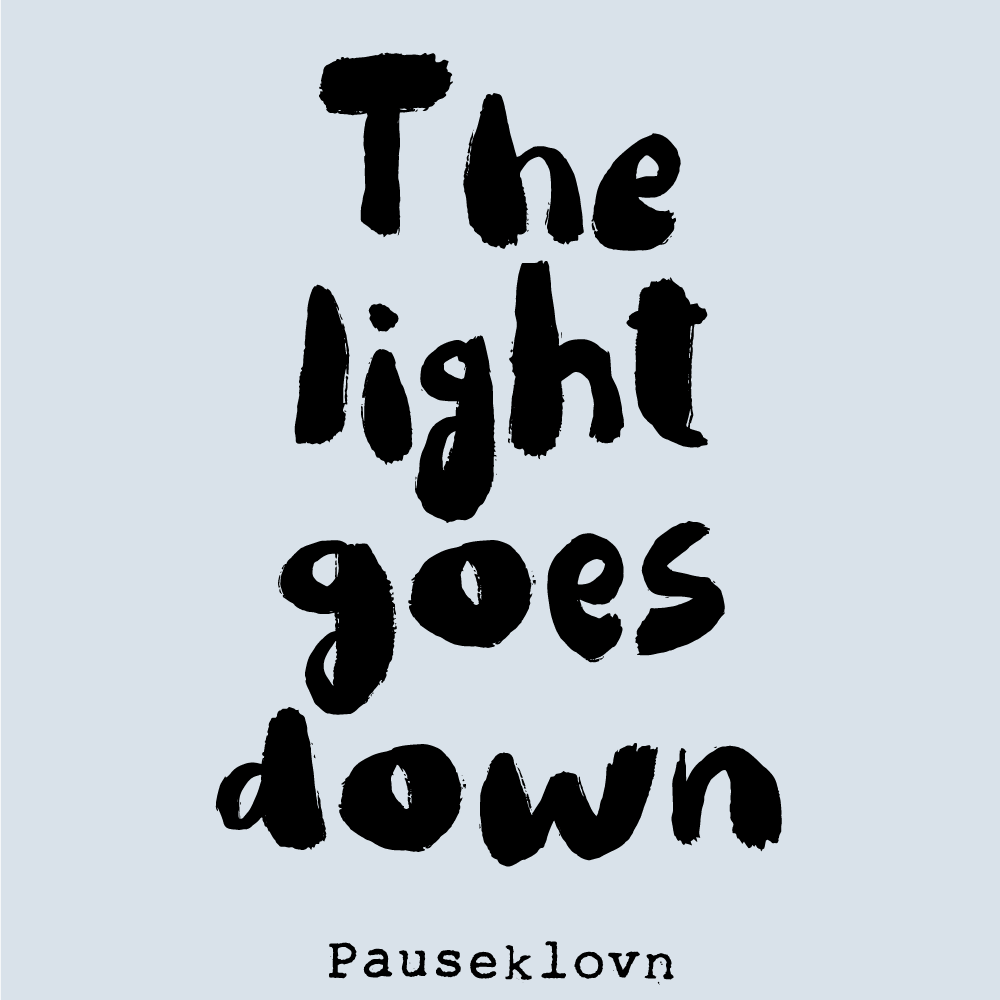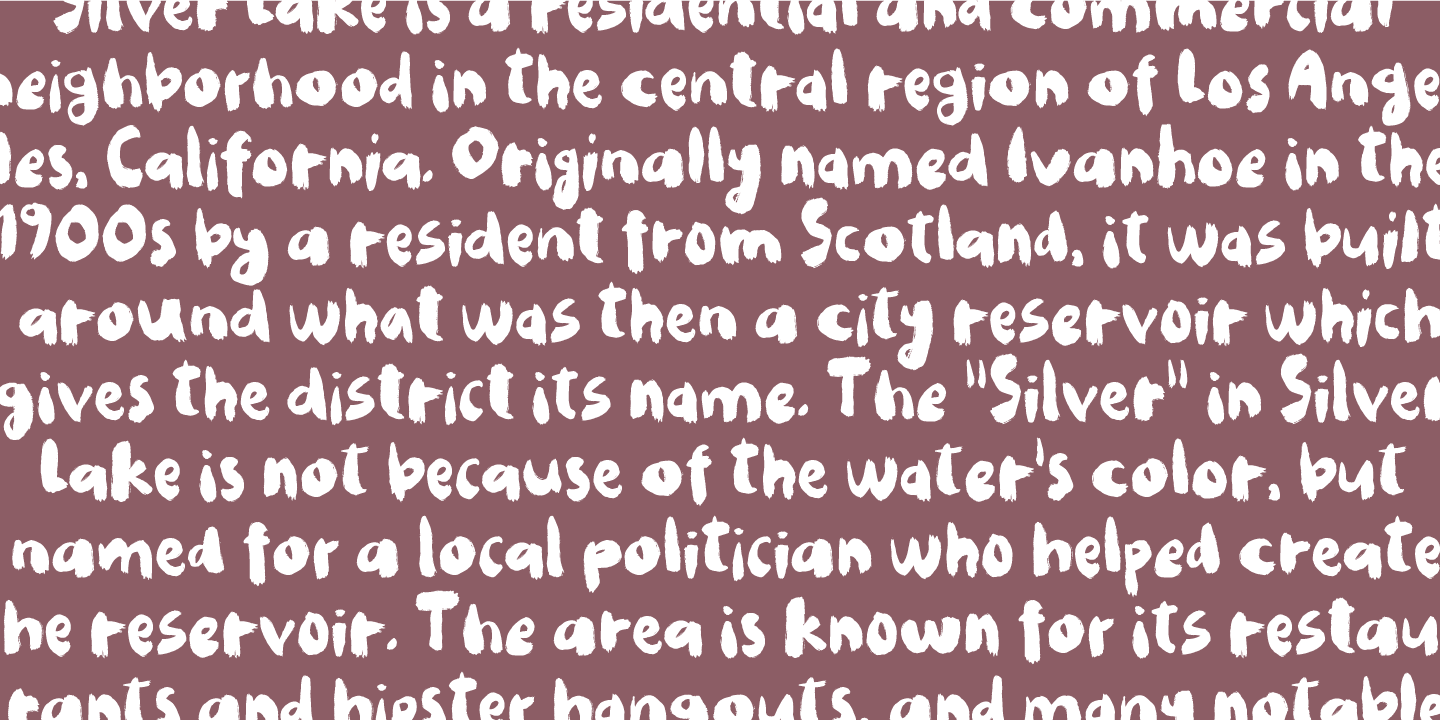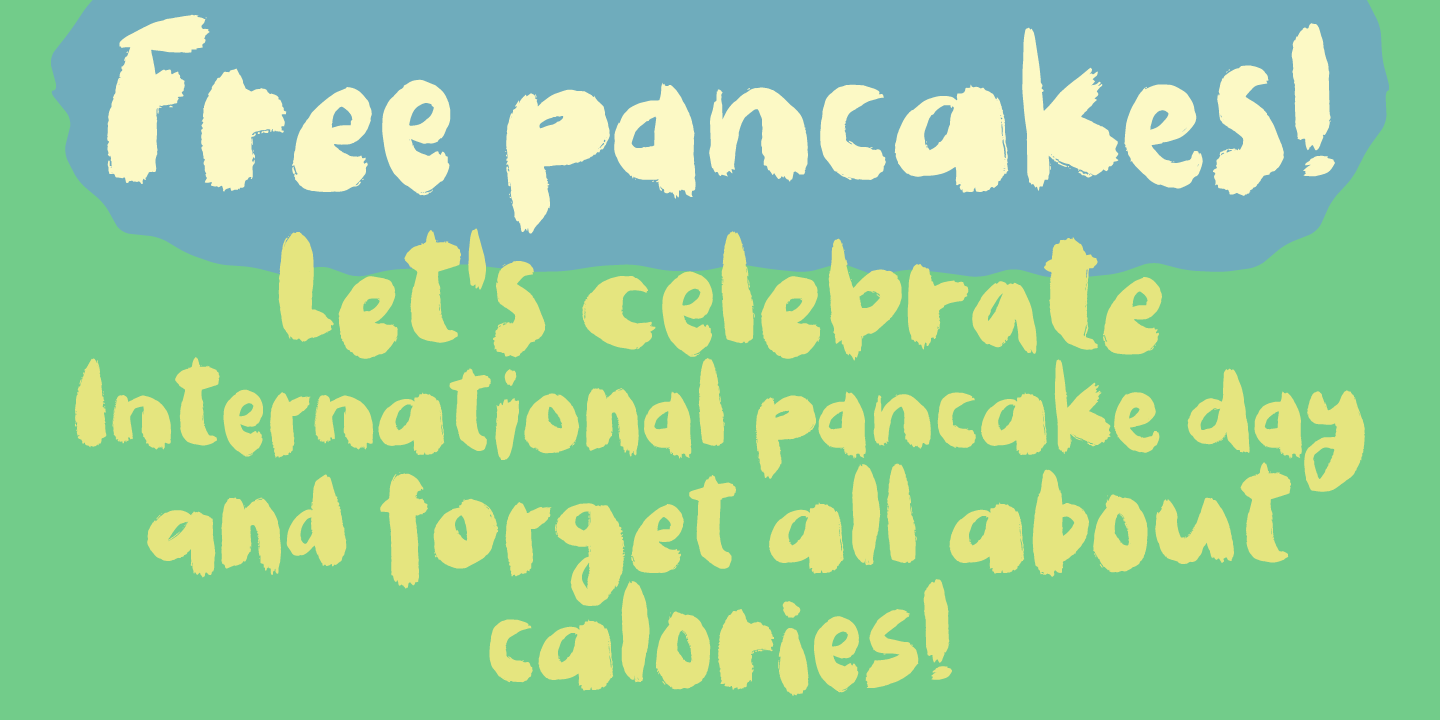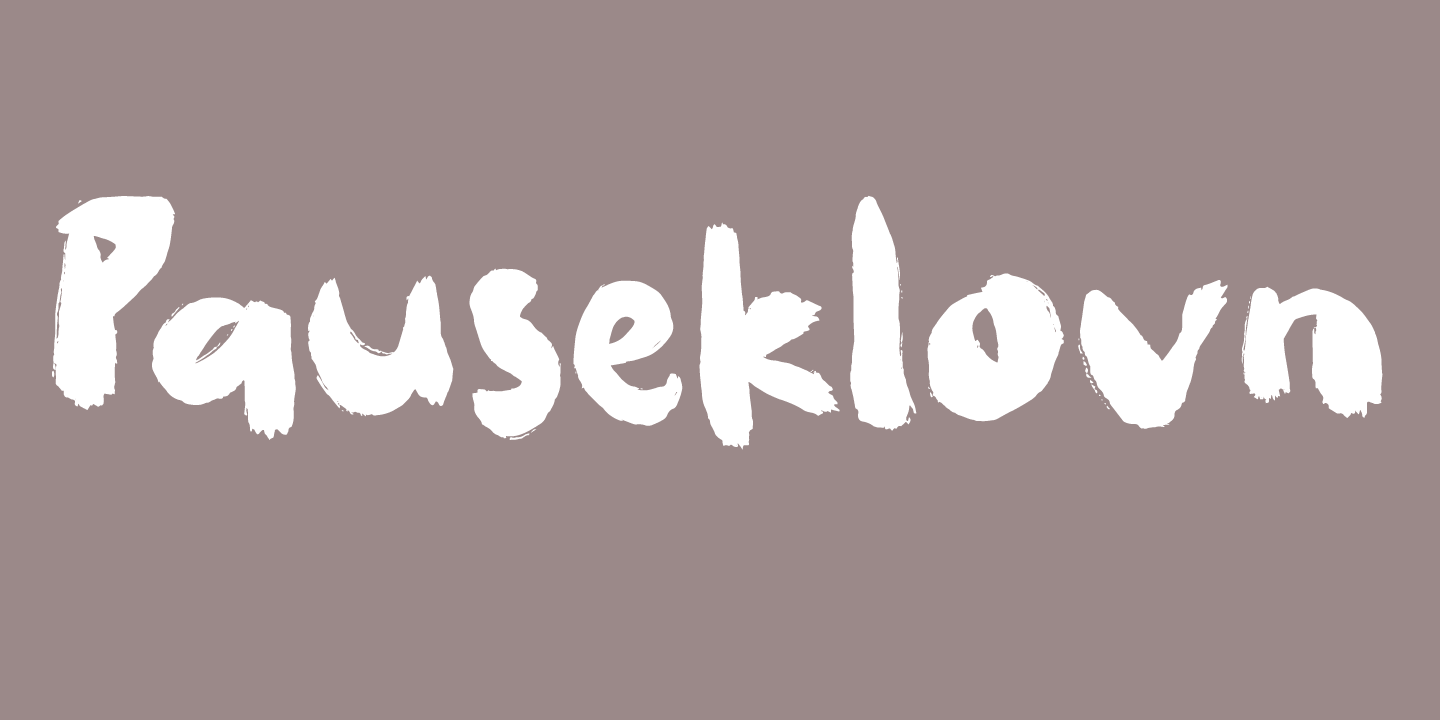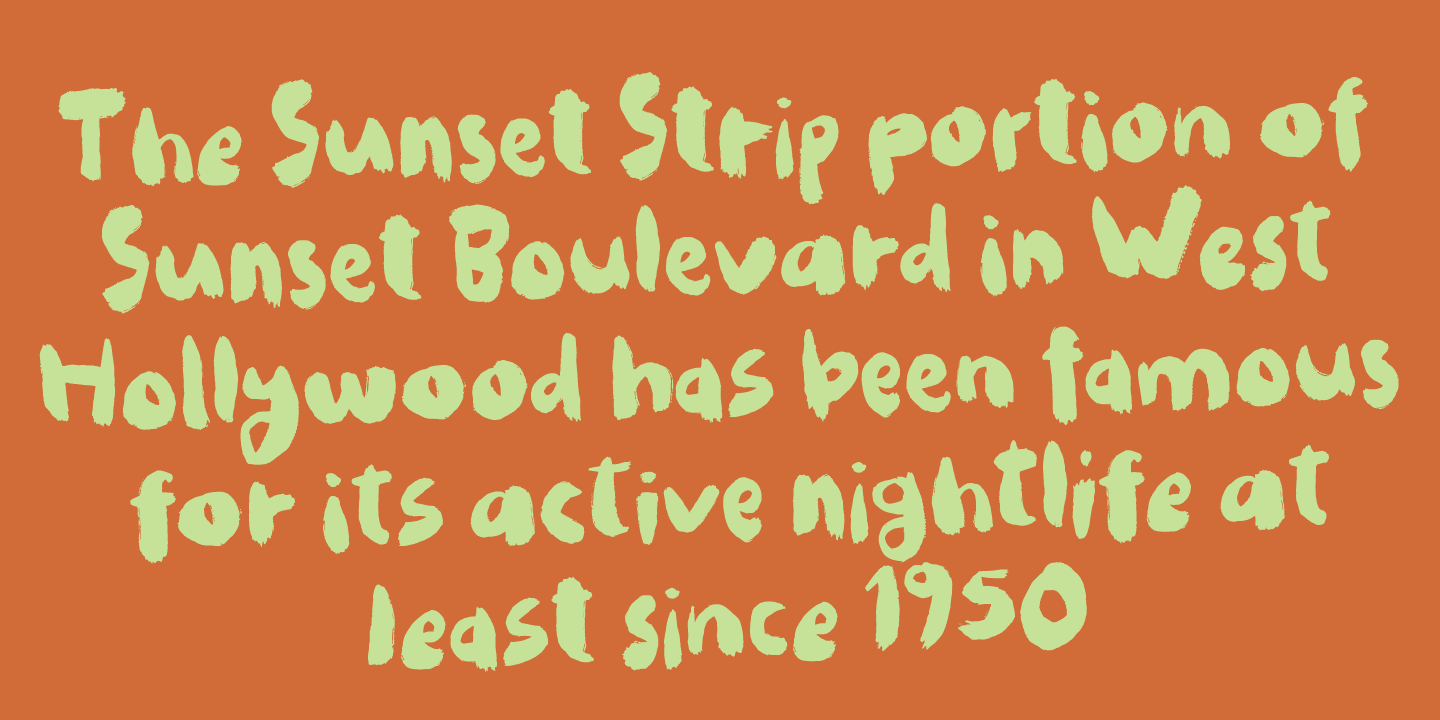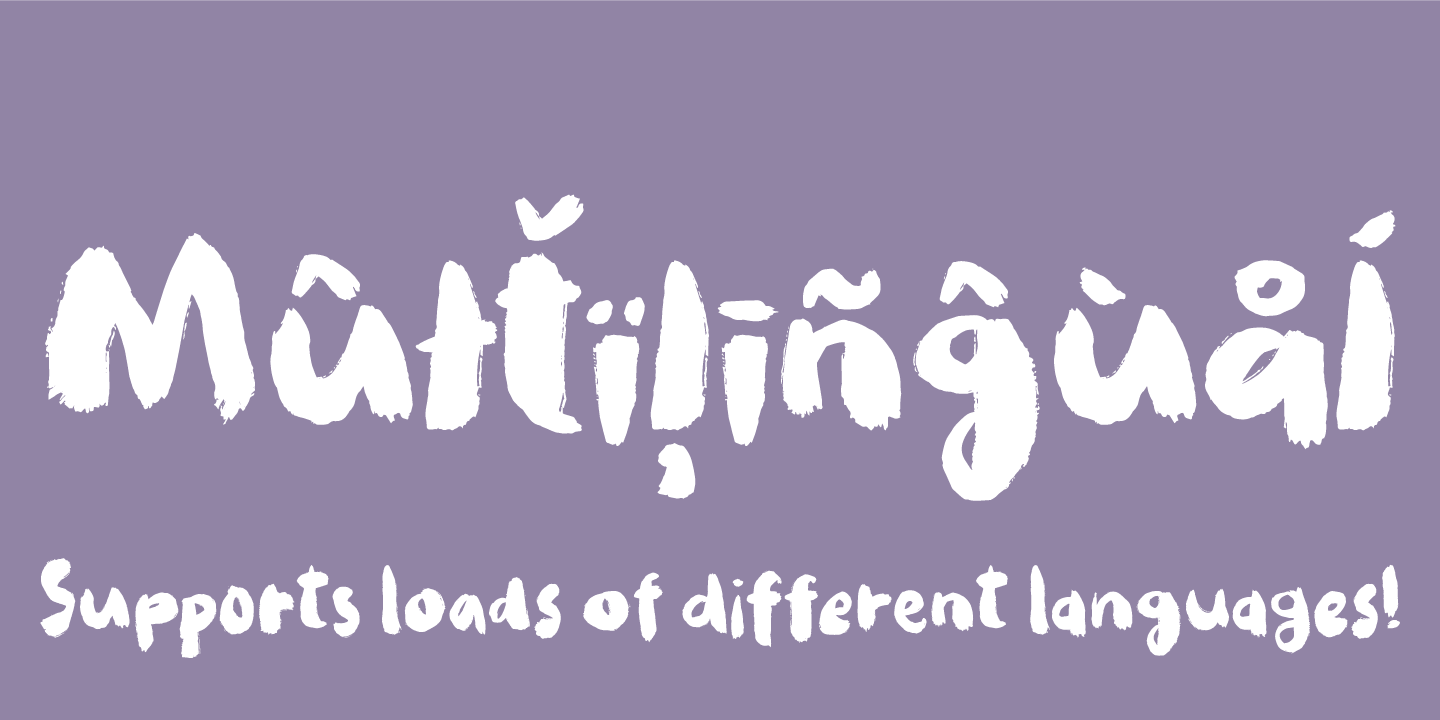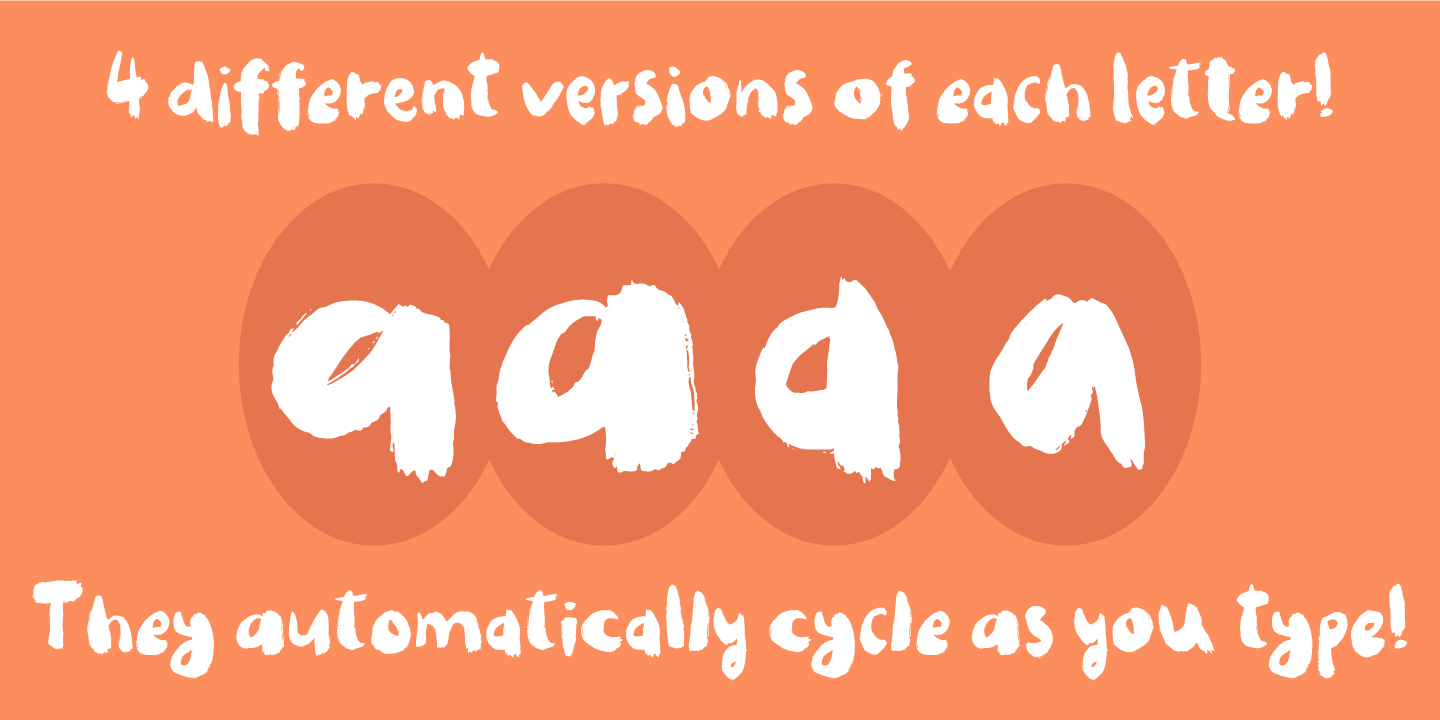
Pauseklovn
The name is danish, and can’t really be translated into English, but its someone who entertains during breaks or just a common funny person! Made with a rough brush and random brushstrokes. Nobody really knows what a “pauseklovn” is up to! :)